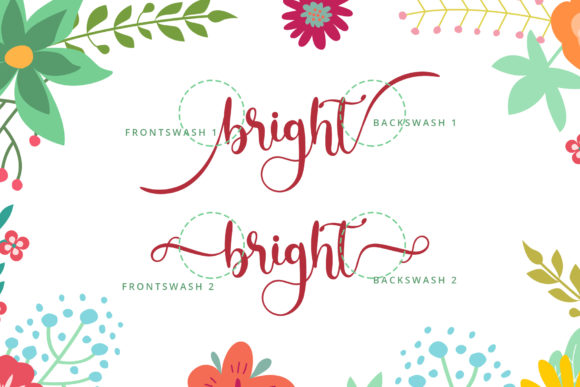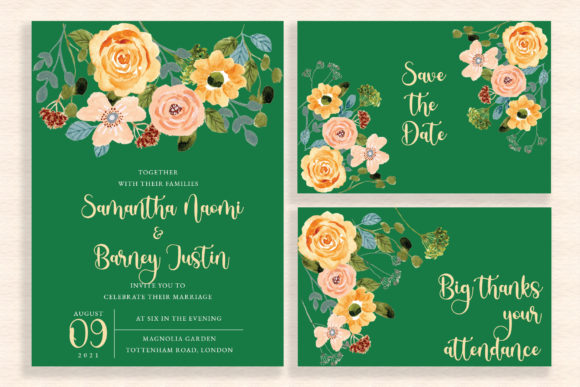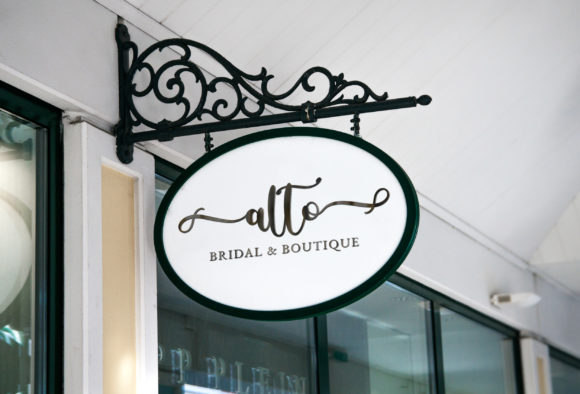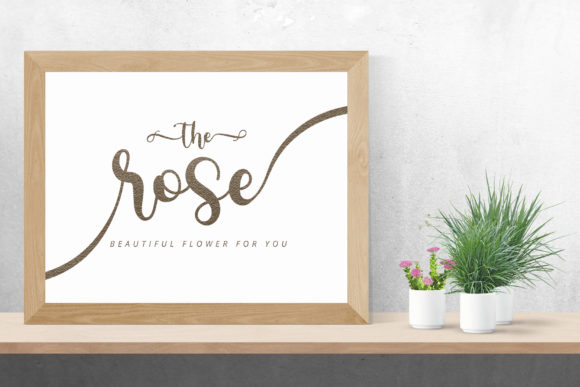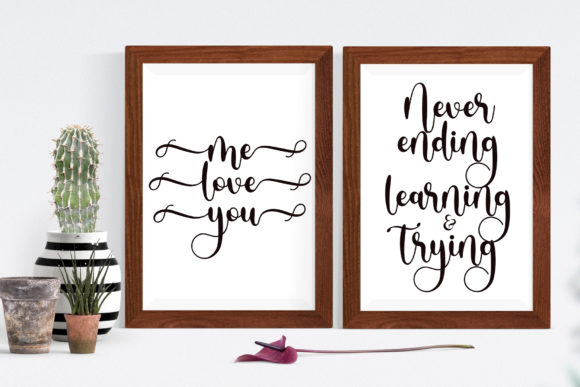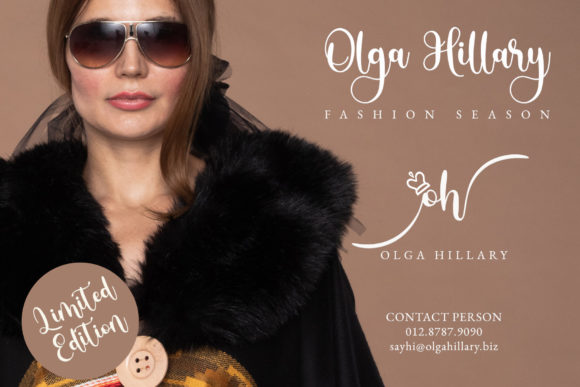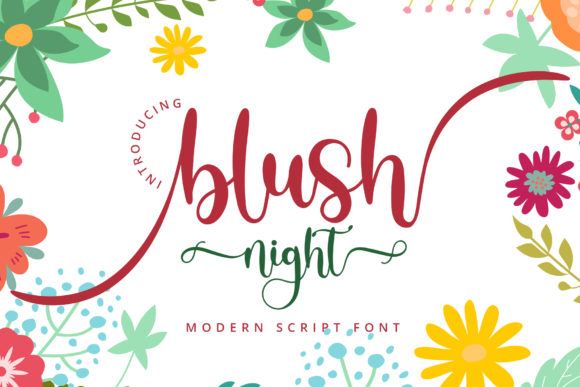
The Elegance of Blush Night Font: A Designer’s Delight
I’ll never forget the time I was working on a wedding invitation project, and my client asked for a font that would make their special day feel like a fairytale. I scoured the internet, tried out countless fonts, but nothing seemed quite right. That was until I stumbled upon Blush Night Font. ✨ It was love at first sight! The elegant, flowing lines and beautiful glyphs instantly captured the essence of a romantic evening. In this article, I’ll share my experience with Blush Night Font, its features, and how to make the most of it in your designs.
An Honest Review of Blush Night Font
• ✨ Incredibly elegant and flowing script
• ✅ Features a varying baseline for a natural, handwritten feel
• ✅ Smooth lines and gorgeous glyphs
• ✅ Stunning alternates for added creativity
• ✅ Perfect for wedding invitations, thank you cards, quotes, and more
While Blush Night Font is a beautiful addition to any design, there are a few things to keep in mind: ⚠️
• 🤔 May not be suitable for very small font sizes or body text
• ⚠️ Limited availability of certain characters or glyphs
The Story Behind Blush Night Font
Blush Night Font was designed with love and care by a talented type designer. The story goes that the designer was inspired by the beauty of a sunset on a warm summer evening. The result is a font that captures the essence of romance and elegance.
Q: What is Blush Night Font best used for?
A: Blush Night Font is perfect for wedding invitations, thank you cards, quotes, greeting cards, logos, business cards, and any other design that needs a handwritten touch.
Q: Is Blush Night Font available in different languages?
A: Blush Night Font may not support all languages, but it does include some special characters and glyphs. Be sure to check the font’s capabilities before using it for a multilingual project.